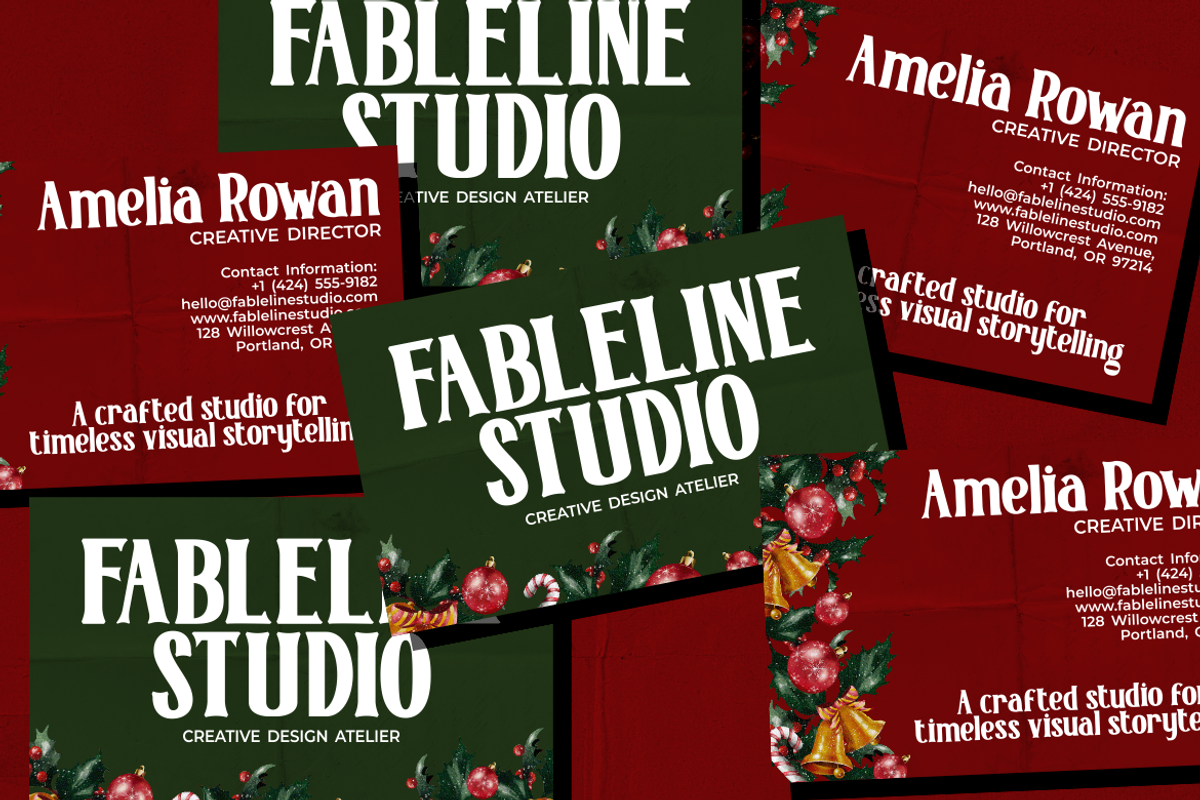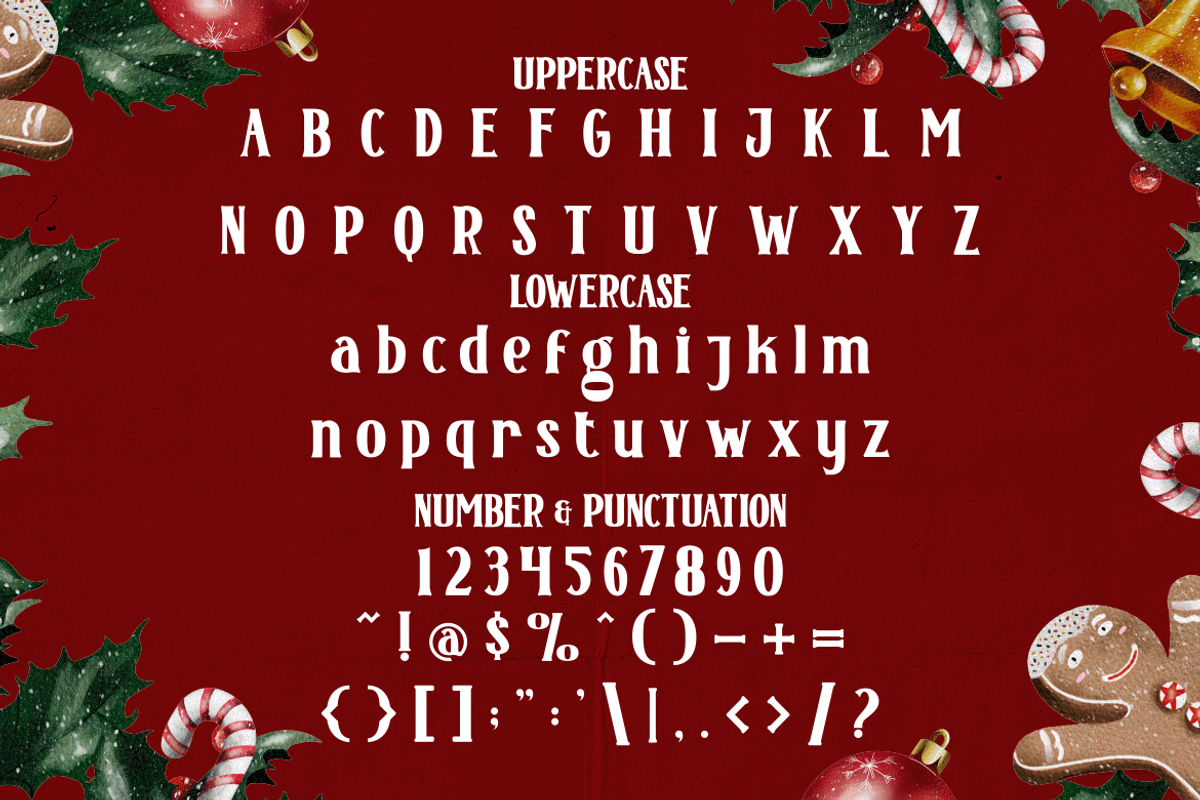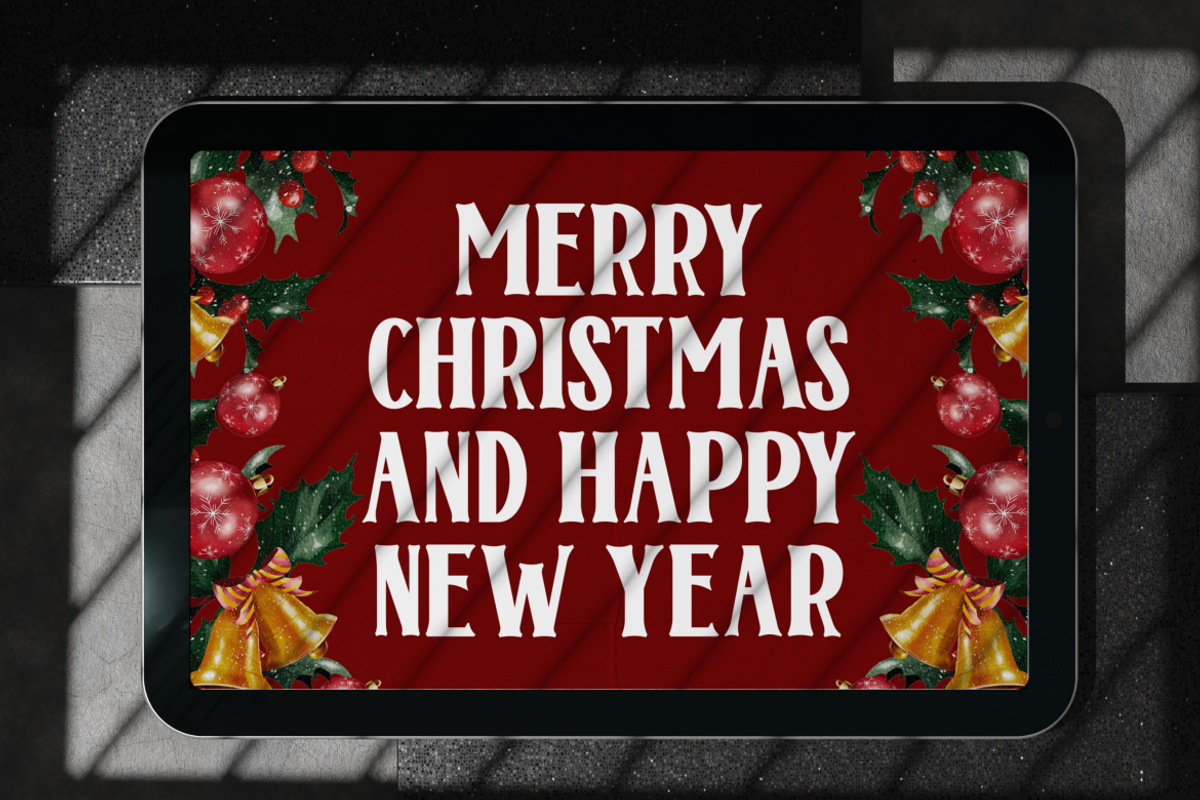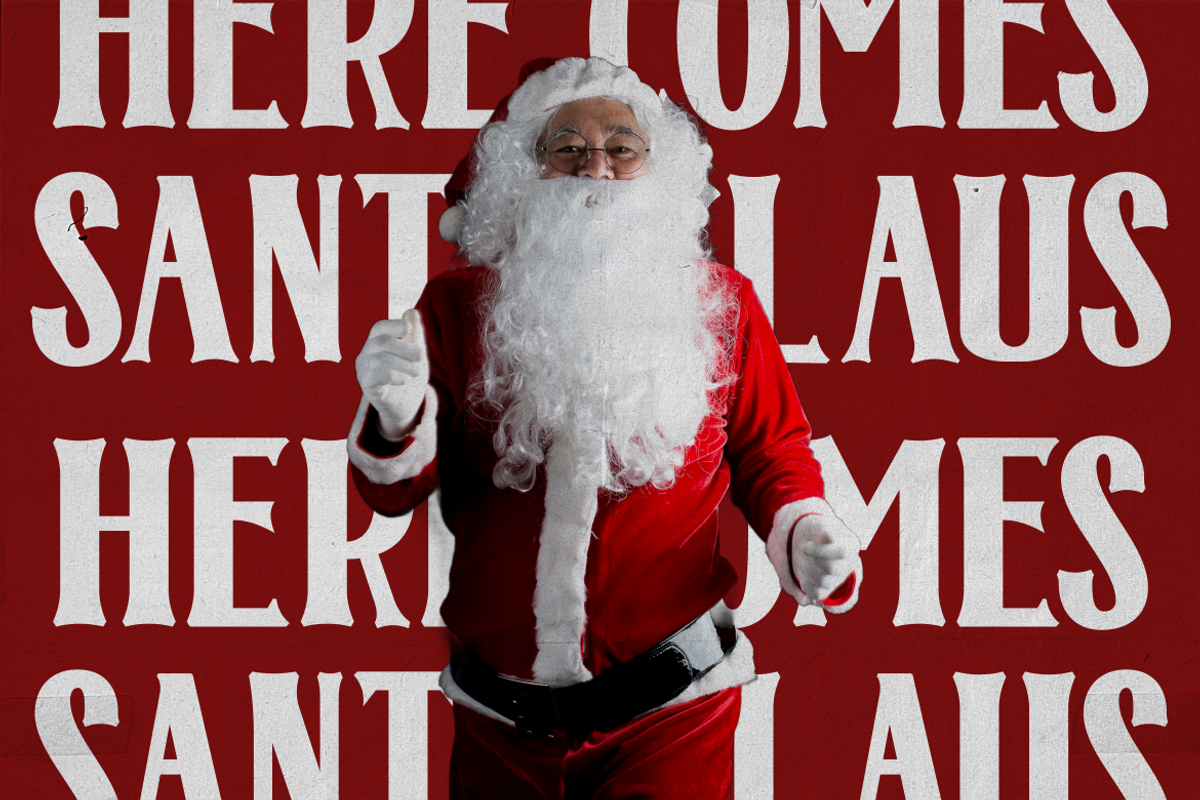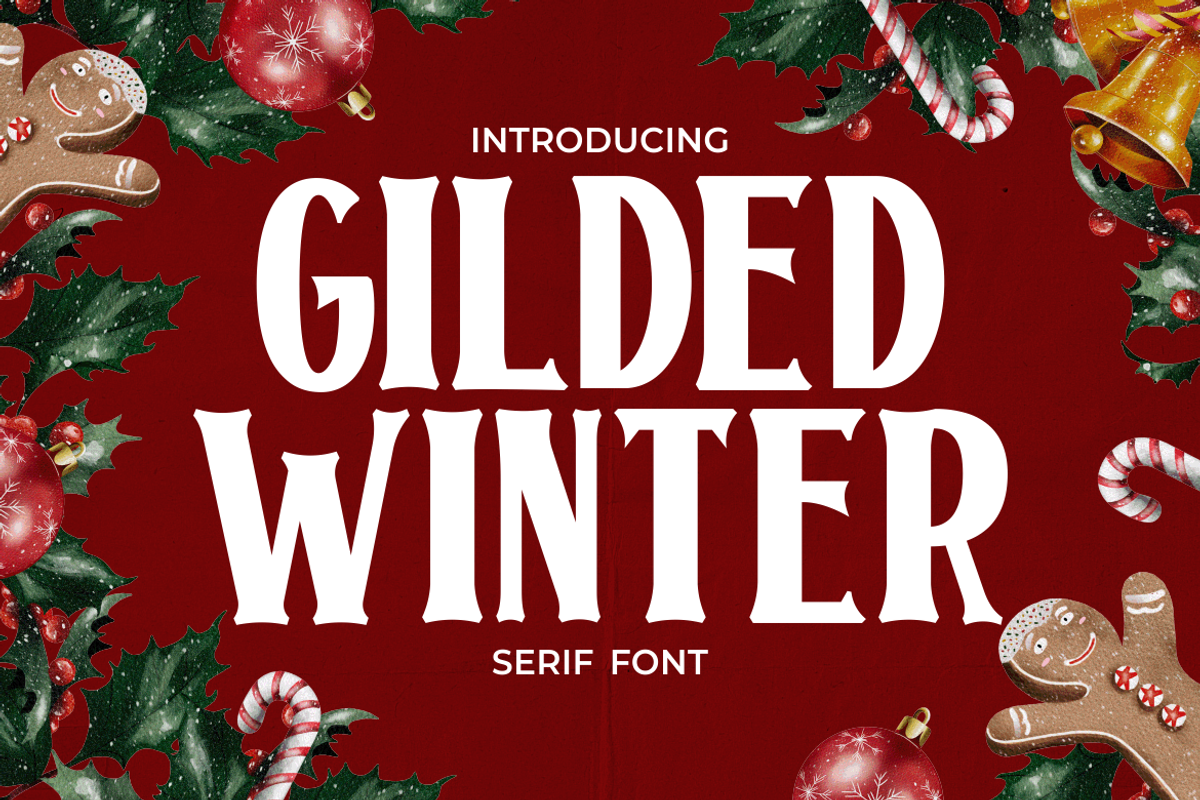
Gilded Winter Serif Display Font
Gilded Winter Serif Display Font brings a classic seasonal tone with strong character presence. The letterforms show tall proportions with confident vertical stress and moderate contrast. Strokes feel solid, with controlled thick and thin transitions that keep the shapes readable at large sizes. The serifs appear slightly flared and firm, adding a traditional yet friendly rhythm. Curves stay rounded, while terminals remain crisp, creating a balance between warmth and authority. The texture feels slightly organic rather than mechanical, which supports a handcrafted impression. This structure works well for brands that rely on emotional connection and tradition. The font supports uppercase and lowercase harmony, making headlines feel cohesive. Gilded Winter Serif Display Font fits branding that needs a timeless seasonal voice without looking dated.
This font style leans toward vintage and festive display typography with a warm, classic personality. It feels celebratory, nostalgic, and inviting, without becoming playful or childish. The font works especially well for logo design, brand identities, and headline-focused layouts. It suits Christmas-themed businesses, holiday campaigns, gift brands, creative studios, bakeries, cafes, event organizers, and seasonal product packaging. The serif structure supports clear hierarchy in posters, advertisements, greeting cards, book covers, magazine titles, and film titles. It also performs well for quotes, stickers, invitations, and crafting projects tied to festive storytelling. Gilded Winter Serif Display Font helps brands communicate warmth, celebration, and tradition through strong typographic presence.